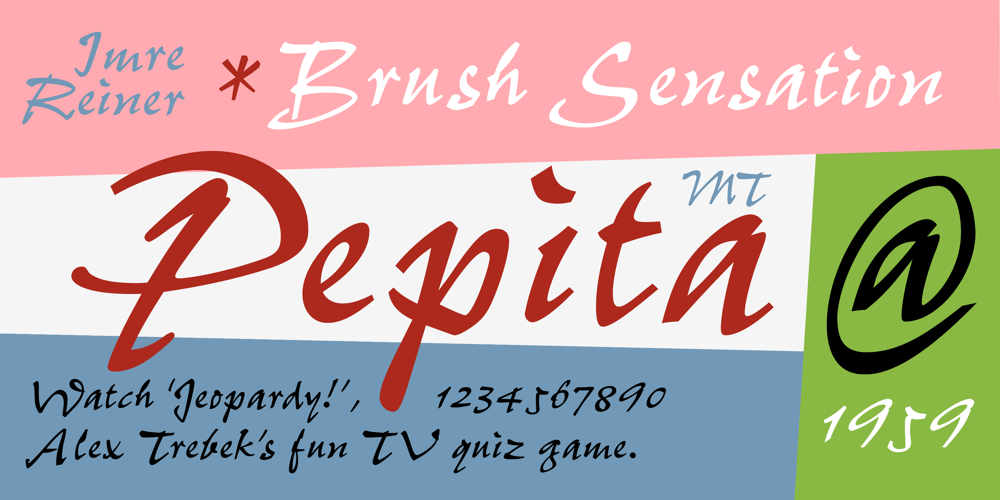
Pepita
Pepita font
Pepita Font Family was designed by Imre Reiner and published by Monotype. Pepita contains 1 styles and family package options. Pepita was drawn for Monotype in 1959 by Hungarian designer Imre Reiner. It is a brush script face with a lively personality, adding an impulsive feel to informal display purposes. The Pepita font is often chosen for greeting cards, menus, calendars and packaging.